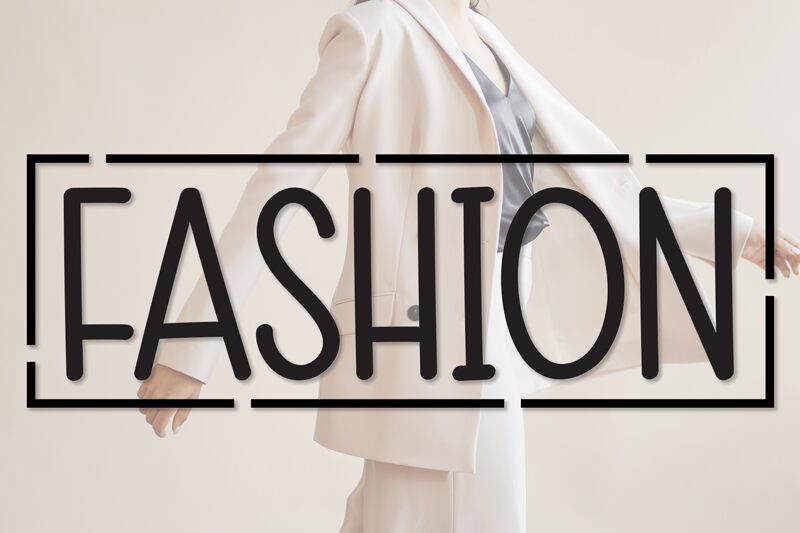
Fashion
Fashion, designed by Scratchones, embodies the chic fluidity of a handwritten font with a semi-light weight and condensed width that give it an elegant yet approachable character. The deliberate strokes and subtle variation in line thickness suggest a personal touch, making it ideal for designs that require intimacy and warmth without sacrificing sophistication.
Its aesthetic appeal lies in its ability to balance casual charm with stylish finesse, perfect for branding, invitations, or editorial layouts that aim to leave a memorable impression. Fashion's versatility ensures it fits seamlessly into an array of creative projects where personality and style are paramount.